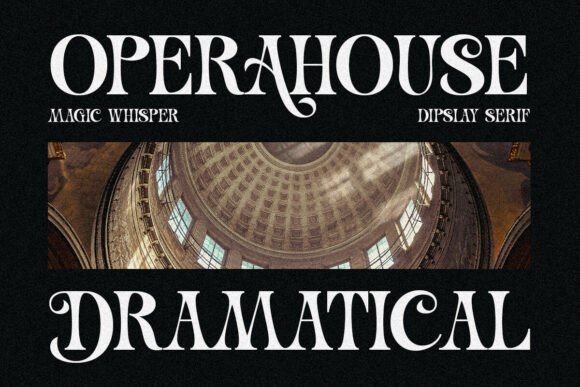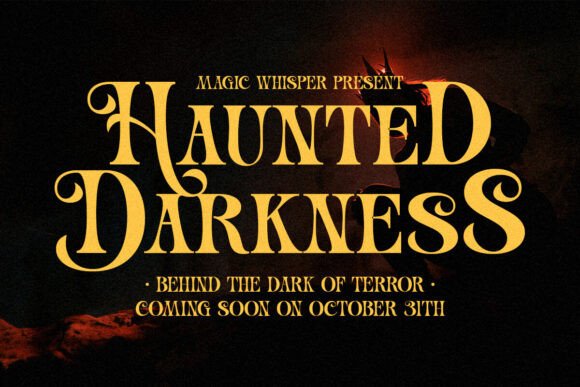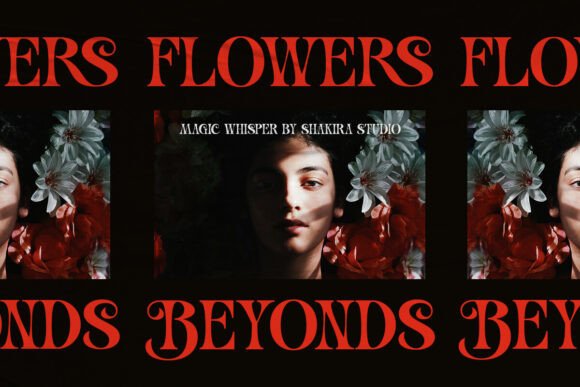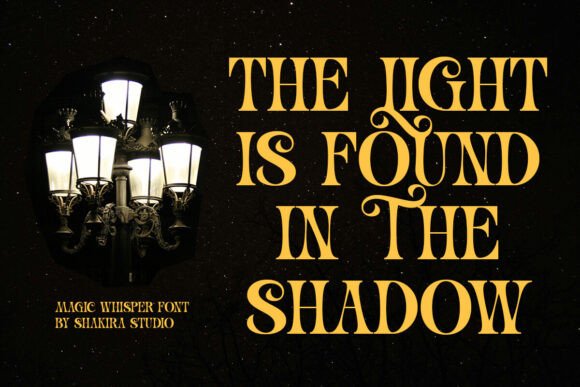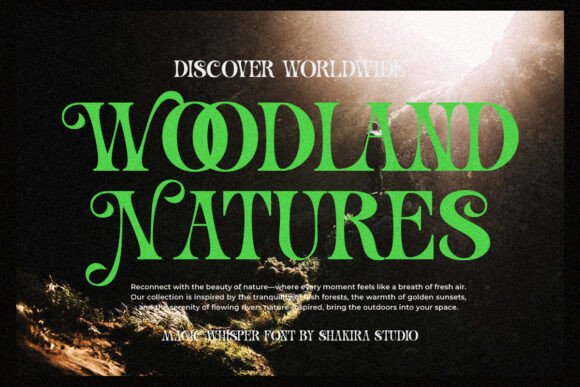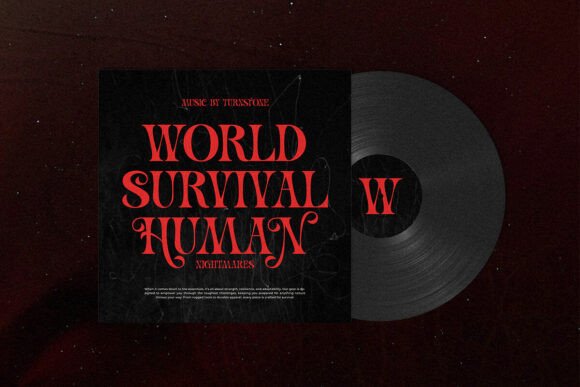
Unlocking the Secrets of Magic Whisper Font
Do you remember that moment when you stumbled upon the perfect font to elevate your design project? For creatives, it’s like discovering a hidden treasure that brings their vision to life. That’s exactly what Magic Whisper Font offers – a dramatic serif display font that exudes elegance and mystique. With its bold Regular version, stylish alternates, and ligatures, this typeface is designed to leave a lasting impression.
Whether you’re working on a branding project, creating eye-catching posters, or crafting editorial designs, Magic Whisper Font is the perfect design resource to take your creative project to the next level. Its unique blend of vintage charm and modern aesthetics makes it a valuable asset for designers who seek to stand out from the crowd.
Key Features of Magic Whisper Font
- Unique, elegant design with subtle magic-inspired elements, ideal for creative projects that require a touch of whimsy.
- Designed to be highly legible, even at small font sizes, making it perfect for use in digital applications, signage, and print materials.
Honest Review: Magic Whisper Font
I recently had the chance to work with the Magic Whisper Font, and I have to say, it’s been a game-changer for my creative projects. The font is a high-quality design resource that’s perfect for adding a touch of magic to your designs.
- ✨ The font is highly customizable, making it perfect for a wide range of creative projects.
Overall, I’m really impressed with the Magic Whisper Font. It’s a valuable addition to any designer’s toolkit, and I highly recommend it for any creative project. With its high quality and transparent background, it’s the perfect design resource for anyone looking to add a touch of magic to their work.
Tips for Getting the Most Out of Magic Whisper Font
Experiment with different font sizes and colors to create visually appealing designs. Use the Magic Whisper Font in combination with other design resources to create a unique and captivating look.
The Magic Whisper Font is ideal for use in various creative projects, including logos, business cards, brochures, and social media graphics. It’s also perfect for creating high-quality typography for websites and magazines.
Alternatives to Magic Whisper Font